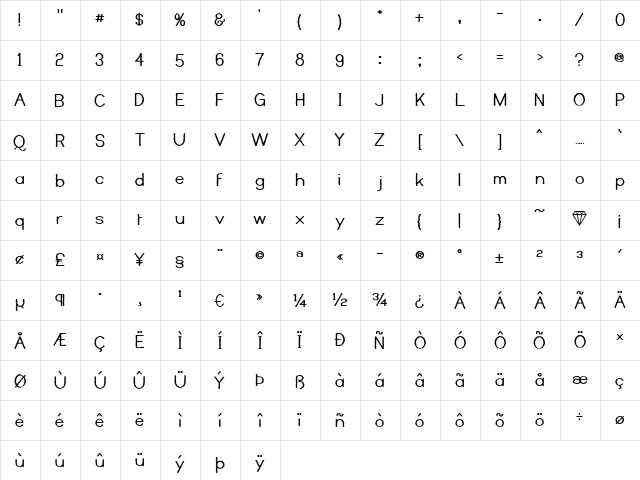
Kyiss M'ass Regular
Design Context for Kyiss M'ass Typeface
Kyiss M'ass offers clean, dependable letterforms without strong stylistic allegiance, making it a practical choice for designers who need flexibility.